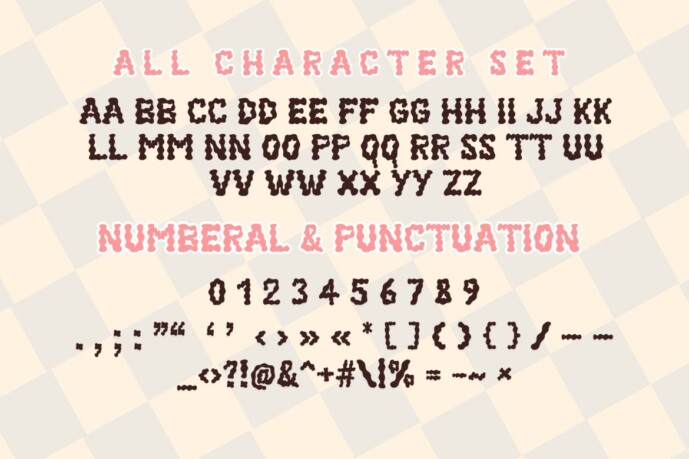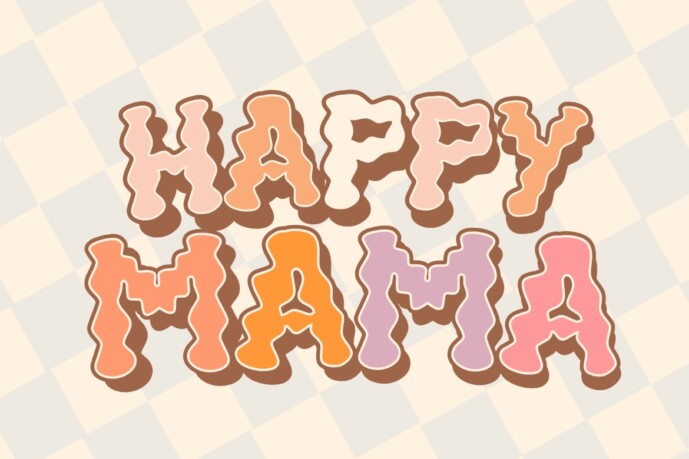
Retro Bubble Font
Retro Bubble Font is a stylish groovy retro font. Perfect for all your hippie-inspired designs, it embodies the playful and authentic side and is the perfect choice for all your favorite projects, or even for blog posts, logos, branding, advertisements, invitations, greeting cards, planners, photo albums, decorations and much more. Add it to any of your designs and enjoy the result!